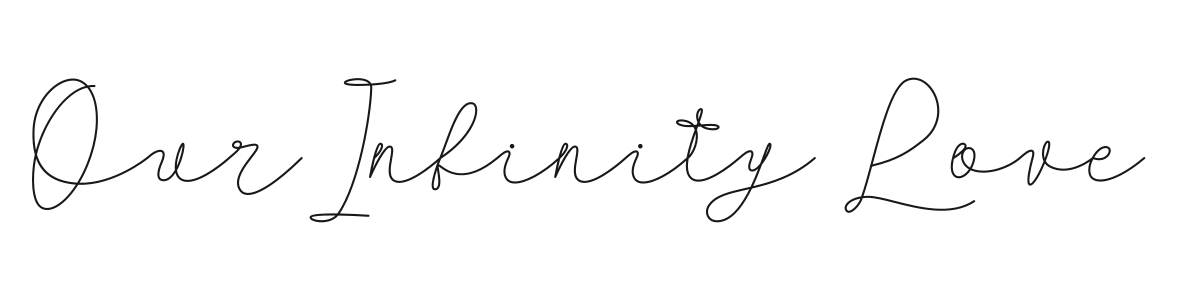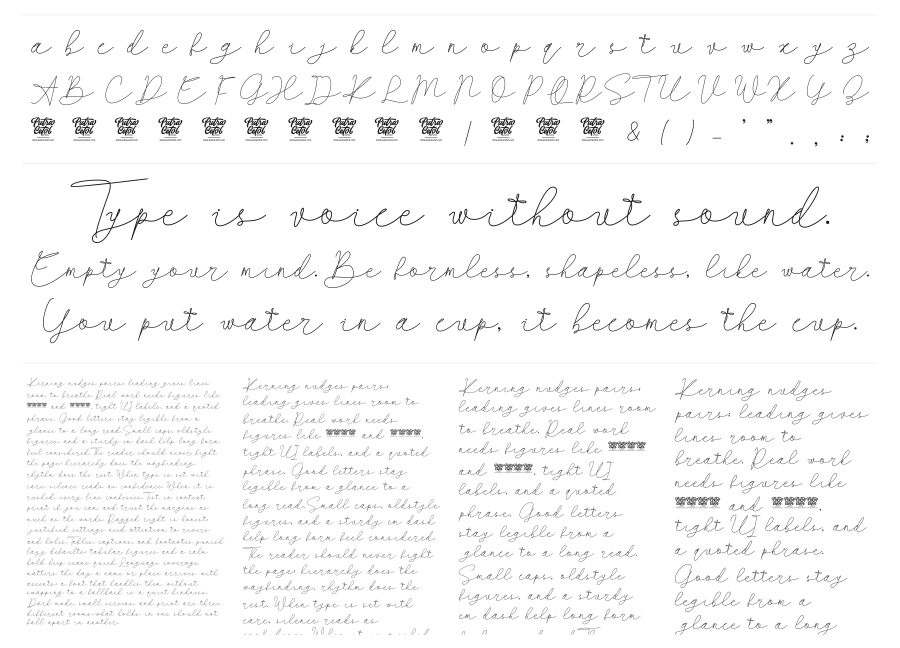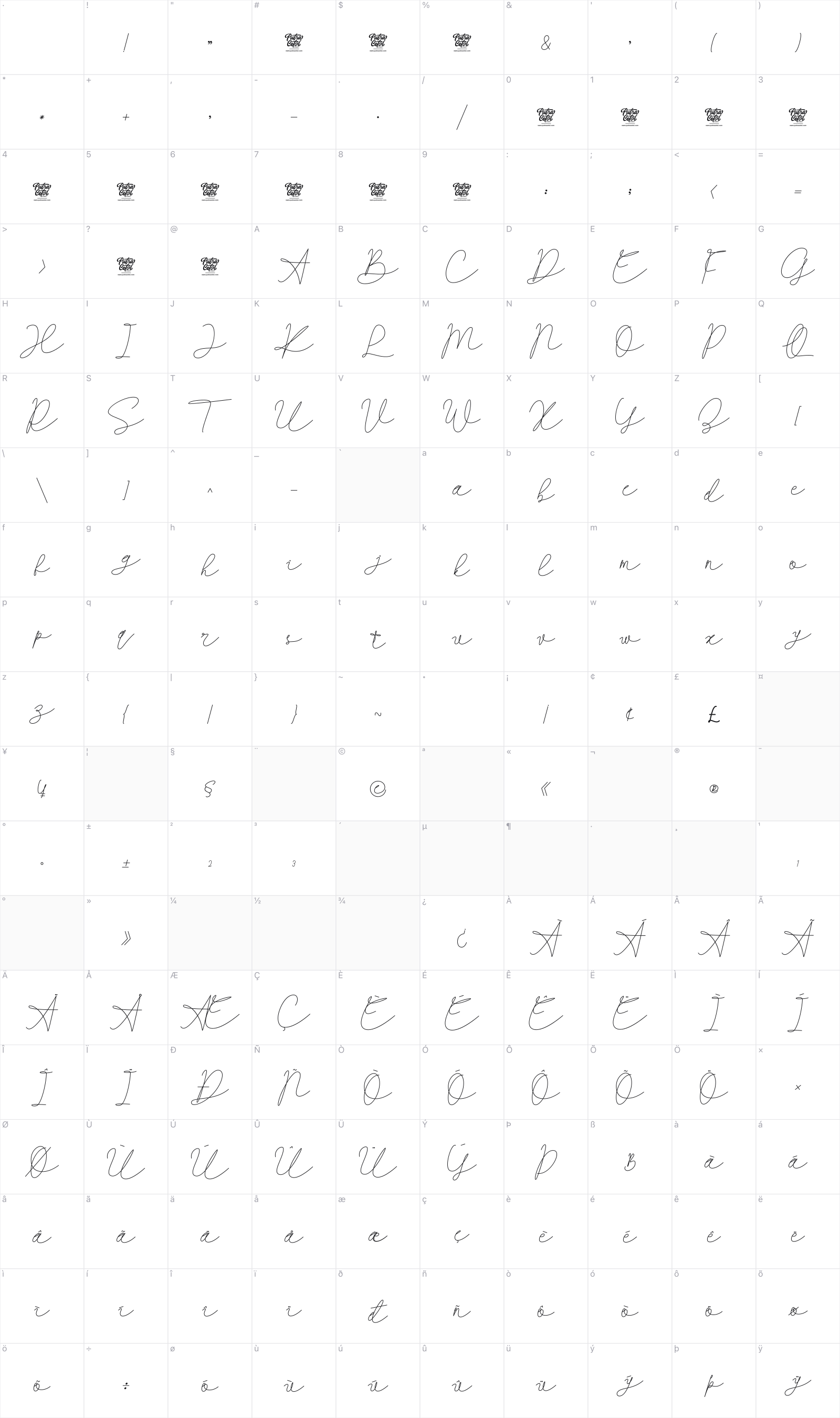
Our Infinity Love
Our Infinity Love is a hairline formal script where every character flows as if drawn in a single continuous thread. The near-zero stroke contrast and long looping ascenders give it a handcrafted, almost embroidered delicacy. It reads best large, where those fine strokes and sweeping connections can breathe.